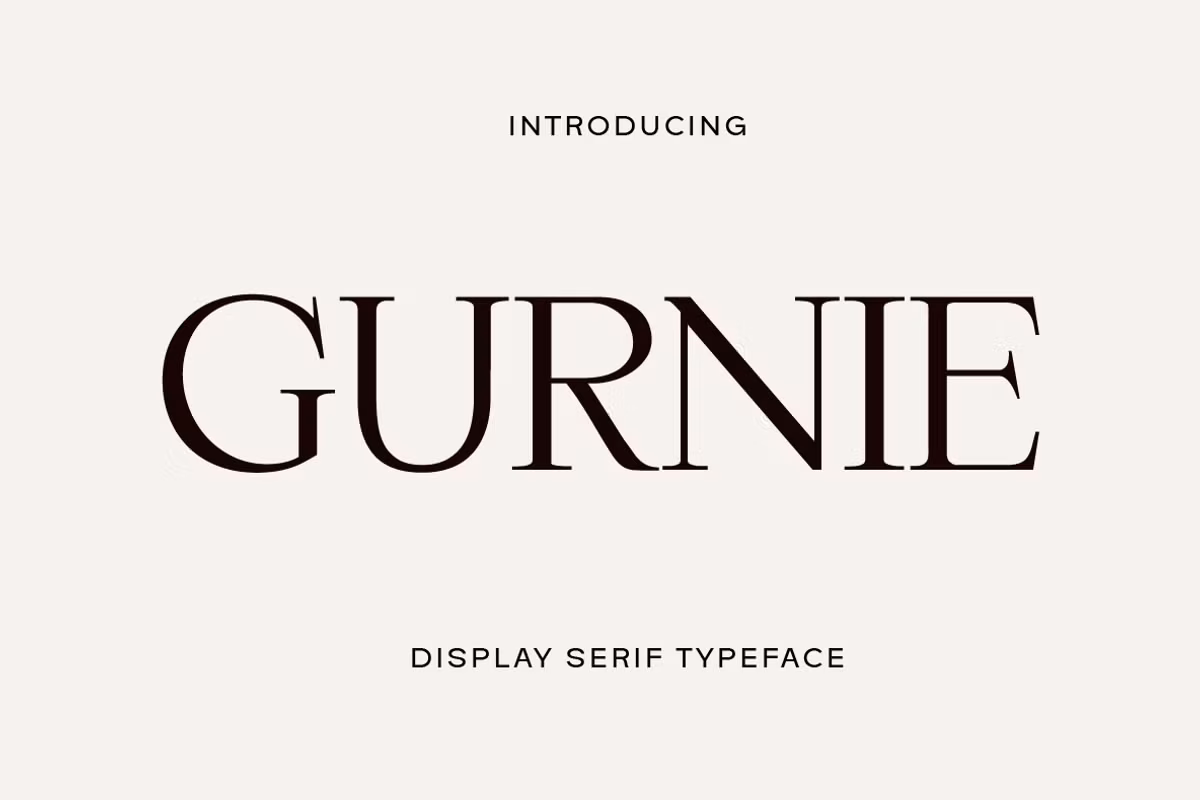
Gurnie Serif Fonts Free Download is a charming and expressive typeface collection that blends classic serif elegance with a quirky, modern edge. Perfect for creative branding, wedding invitations, magazine layouts, and artistic packaging, Gurnie adds character and flair to any visual presentation. Its soft curves and unique letter shapes make it ideal for designers seeking a distinctive, handcrafted look.
With multiple styles included, Gurnie offers flexibility for pairing headlines with body text while maintaining a cohesive visual language. Whether you’re crafting a romantic design or an upscale label, this font family delivers both beauty and functionality.